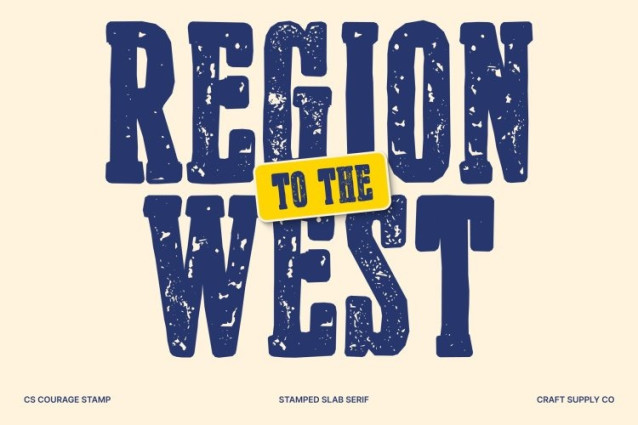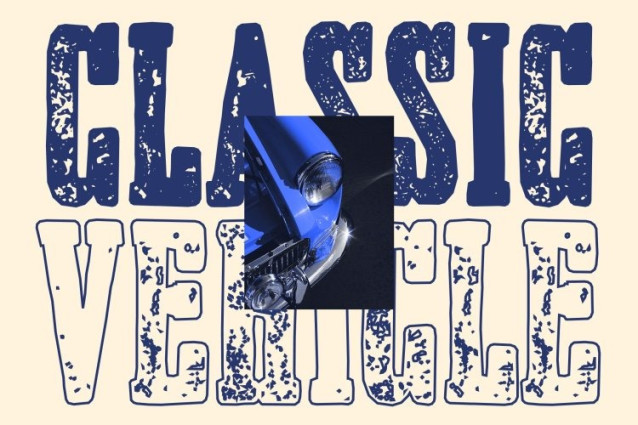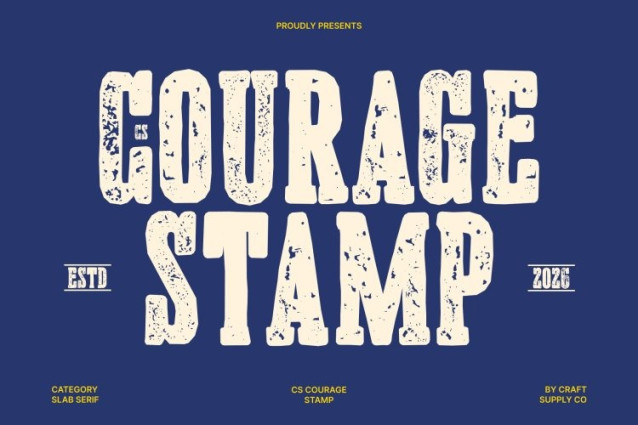
CS Courage Stamp Font
CS Courage Stamp Font – This is a bold slab serif font that embodies strength, confidence, and a rugged retro aesthetic. Inspired by classic Western signage, vintage boxing posters, and heritage branding, its blocky letterforms and solid structure create a commanding visual presence. Enhanced with a stamp effect, the font gains a textured, distressed finish that reinforces its authentic vintage appeal.
Sturdy Letterforms with Textured Character
The thick, squared serifs and balanced proportions give a strong, masculine tone while ensuring excellent readability. The stamp texture introduces subtle ink variations and worn edges, adding depth and a weathered look reminiscent of aged prints and old signage.
Retro Charm with a Bold Identity
This font blends nostalgic design with modern usability. Its firm construction and bold style communicate reliability and tradition, while the textured finish adds personality and visual richness perfect for designs that need to feel both classic and impactful.
Perfect for Heritage and Adventure-Themed Designs
Ideal for Western-style graphics, vintage branding, posters, apparel, packaging, and adventure-themed projects, this font delivers a powerful and memorable typographic voice. Its fusion of slab serif strength and vintage stamp texture creates a design style that feels bold, timeless, and full of character.